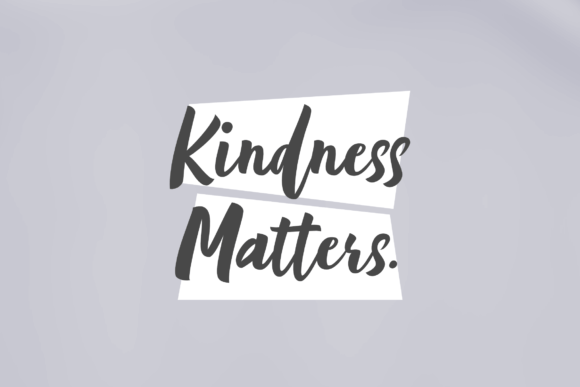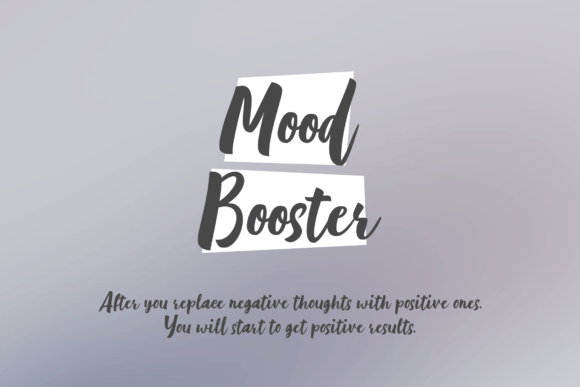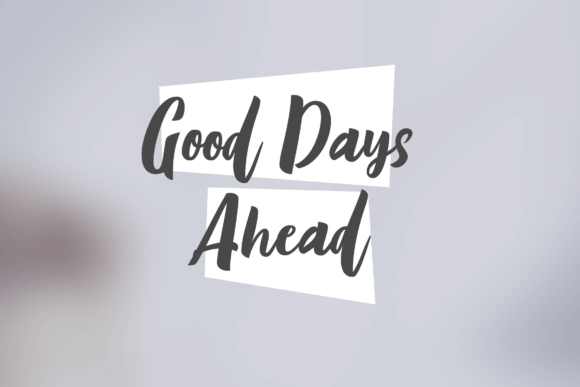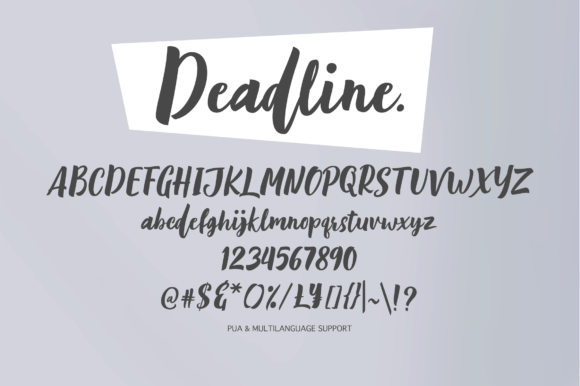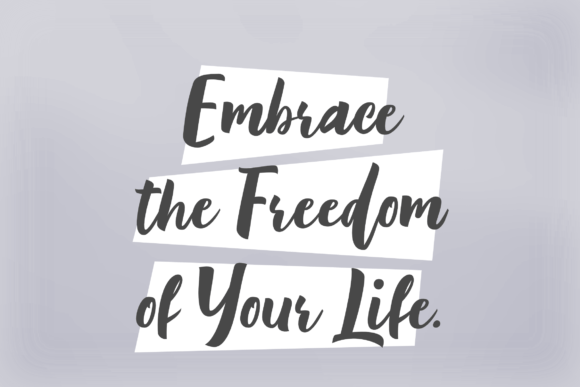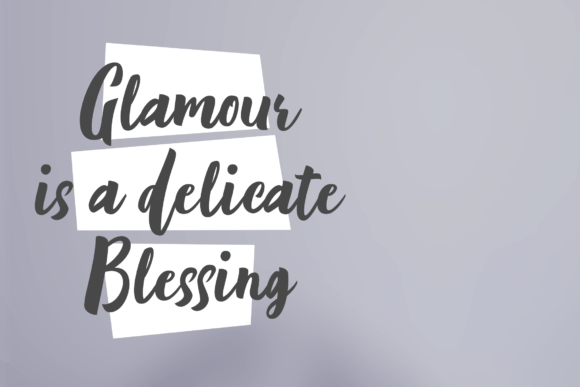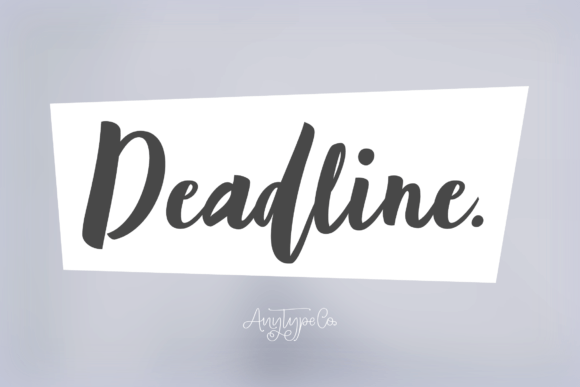
Unlocking the Beauty of Deadline Font: Elevate Your Designs with Elegance
Discover beauty in every stroke. Deadline Font presents an alluring handwriting font adorned with an unbeatable touch of elegance. Perfect for your favorite projects, this font transcends time, ensuring your designs remain consistently spectacular!
Introduction to Deadline Font
In the world of typography, fonts play a crucial role in conveying messages, expressing emotions, and creating a lasting impression. Among the numerous fonts available, Deadline Font stands out for its unique blend of elegance and versatility. This handwriting font has been designed to cater to the needs of designers, crafters, and anyone looking to add a touch of sophistication to their projects.
The Allure of Deadline Font
Deadline Font boasts an alluring quality that sets it apart from other fonts. Its elegant strokes, precise lettering, and flowing script make it perfect for a wide range of applications, from creative designs to commercial projects. Whether you’re working on a logo, brochure, or social media graphics, Deadline Font is sure to make your designs shine.
Key Features of Deadline Font
- Elegant Handwriting Style: Deadline Font features a beautiful, handwriting-style script that exudes elegance and sophistication.
- Versatile: This font is perfect for various design projects, including logos, brochures, posters, and social media graphics.
- Easy to Read: The font’s clear and precise lettering ensures that your message is conveyed effectively, making it easy for readers to understand.
- Timeless: Deadline Font’s classic design ensures that your projects remain stylish and relevant, even as design trends evolve.
Benefits of Using Deadline Font
By incorporating Deadline Font into your designs, you can enjoy several benefits, including:
- Enhanced Visual Appeal: Deadline Font’s elegant strokes and precise lettering add a touch of sophistication to your designs, making them more visually appealing.
- Consistency: This font ensures that your designs have a consistent look and feel, which is essential for building a strong brand identity.
- Flexibility: Deadline Font can be used for a wide range of projects, from creative designs to commercial applications.
Tips for Using Deadline Font Effectively
To get the most out of Deadline Font, consider the following tips:
- Pair with Complementary Fonts: Combine Deadline Font with complementary fonts to create a harmonious and balanced design.
- Use for Headings and Titles: Deadline Font is perfect for headings and titles, where its elegant strokes and precise lettering can make a lasting impression.
- Experiment with Colors: Try Deadline Font with different colors to add depth and visual interest to your designs.
In conclusion, Deadline Font is an exceptional handwriting font that offers a unique blend of elegance and versatility. With its alluring strokes, precise lettering, and timeless design, this font is perfect for designers, crafters, and anyone looking to elevate their designs. By incorporating Deadline Font into your projects, you can add a touch of sophistication, consistency, and visual appeal, ensuring that your designs remain consistently spectacular!